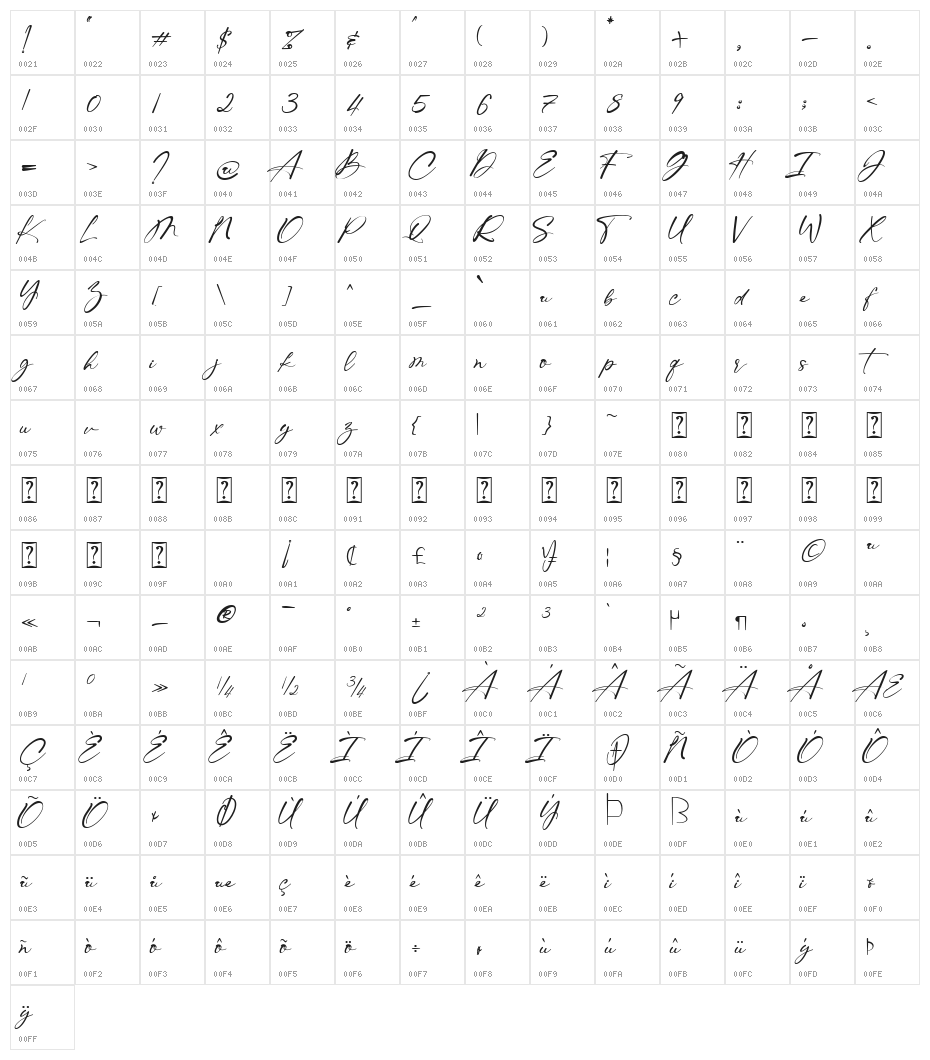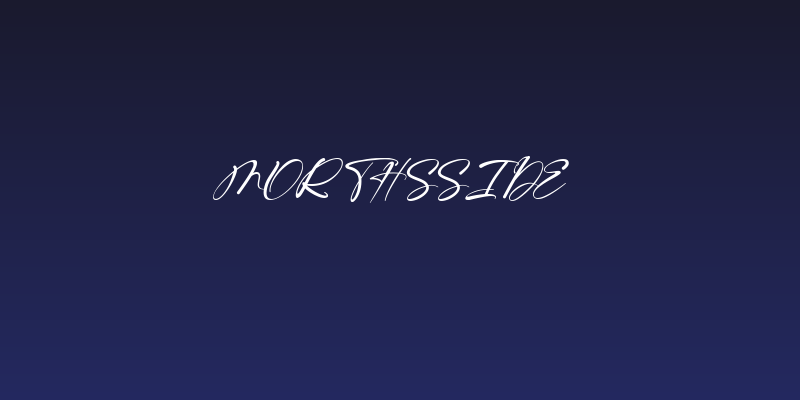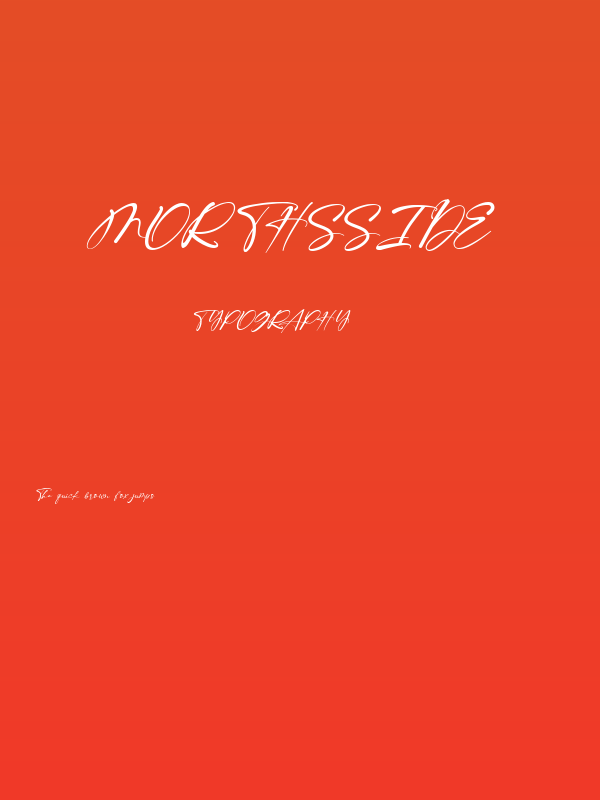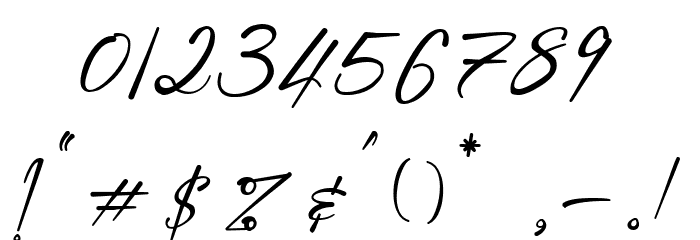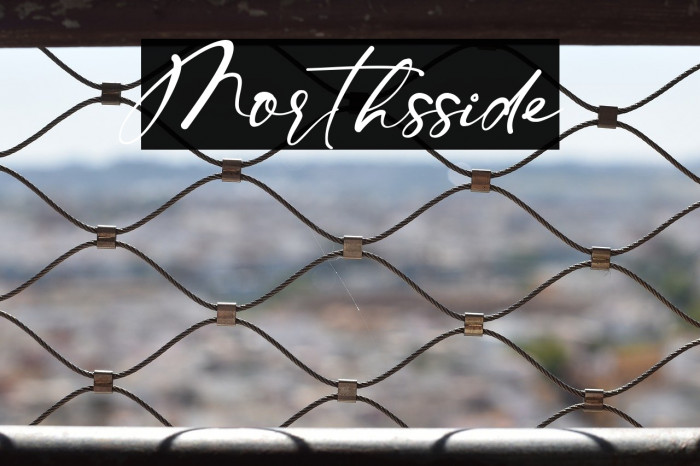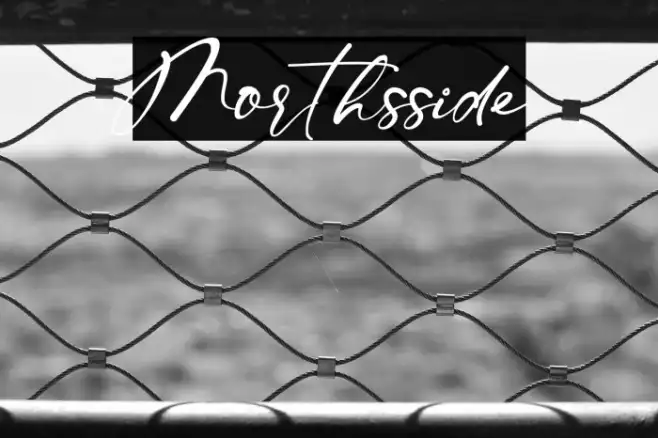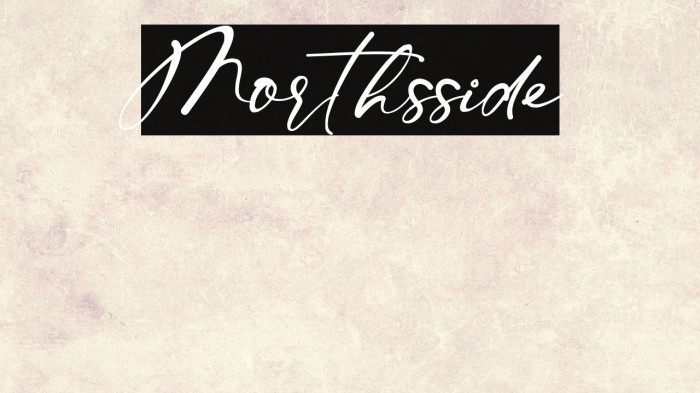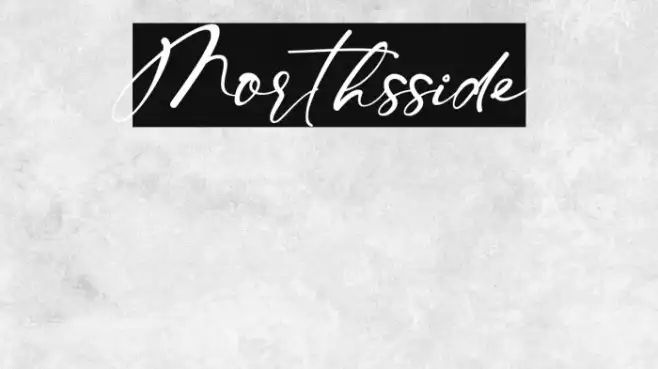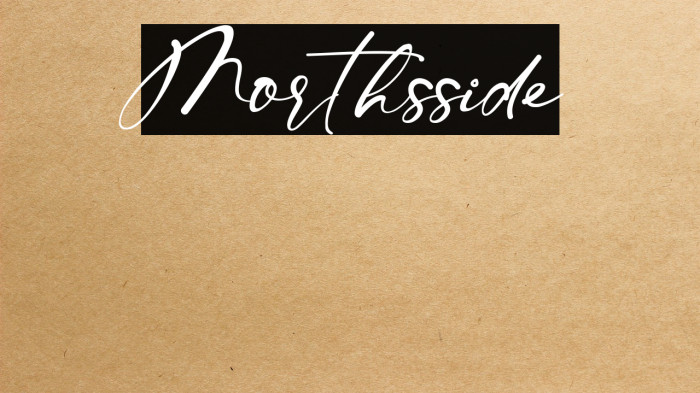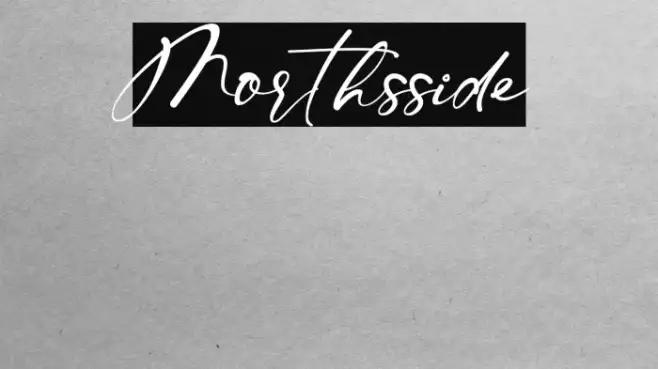
Morthsside Font
Morthsside Description
This font features a dynamic and fluid script style, characterized by its elegant and flowing letterforms. The uppercase letters are bold and expressive, with sweeping curves and loops that give a sense of movement and grace. The lowercase letters maintain a consistent style, with smooth connections between characters that enhance readability while preserving the artistic flair. The numerals are equally stylish, integrating seamlessly with the overall design. Special characters are thoughtfully crafted, maintaining the font's cohesive aesthetic. This font is perfect for projects that require a touch of sophistication and creativity.
| Overall Style | Elegant, Artistic |
| Proposed Projects | Ideal for wedding invitations, branding, logo design, and elegant stationery. |